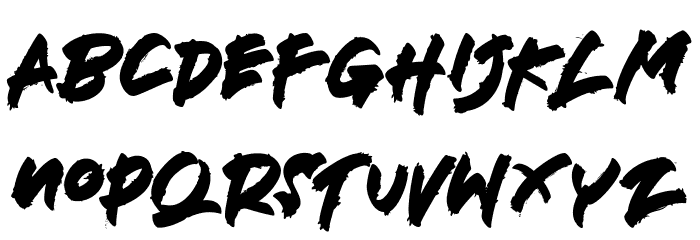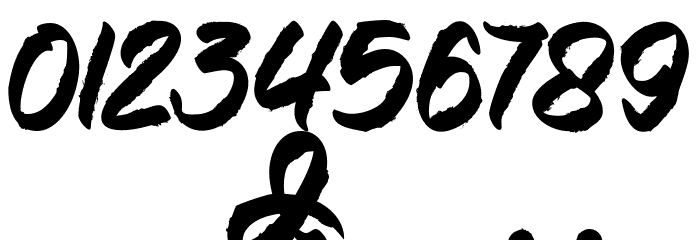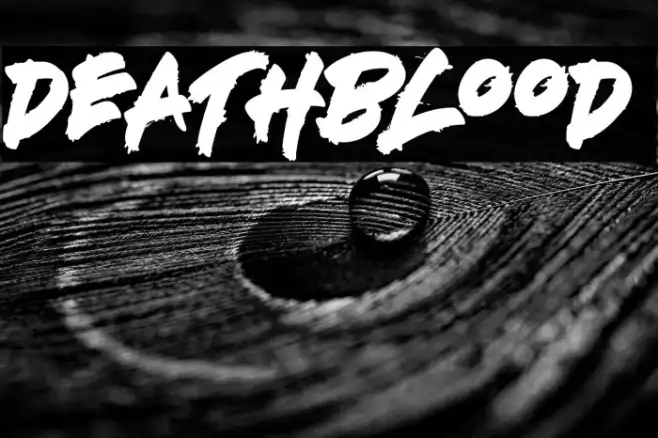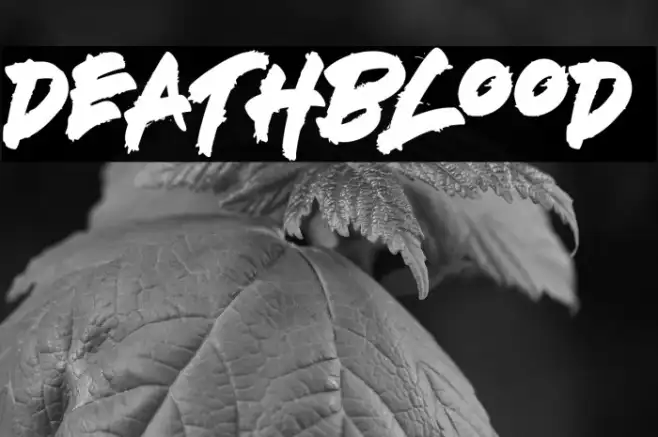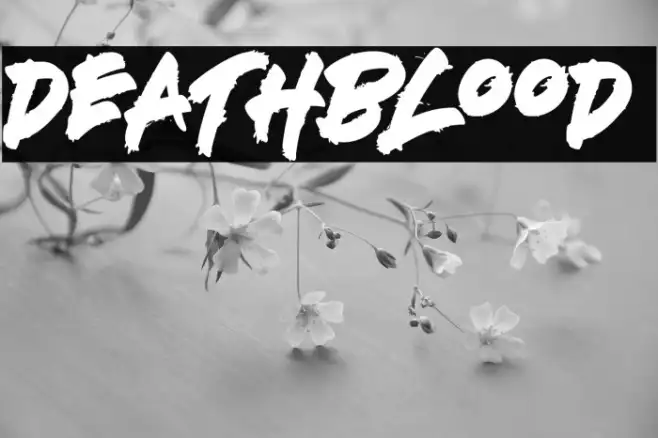
DEATHBLOOD Font
This font exudes a bold and dynamic energy, characterized by its brush-like strokes and expressive, hand-painted appearance. The letters are crafted with a sense of motion and fluidity, giving them a raw and edgy feel. The uppercase and lowercase letters maintain a consistent style, with thick strokes and slightly irregular edges that add to the font's rugged charm. The numbers and special characters follow the same aesthetic, ensuring a cohesive look across all elements. This font is perfect for projects that require a strong, impactful visual presence.
A bold, brush-style font with dynamic, hand-painted strokes.
- Proposed Projects: Ideal for album covers, posters, branding for edgy products, and any design needing a strong, artistic touch.